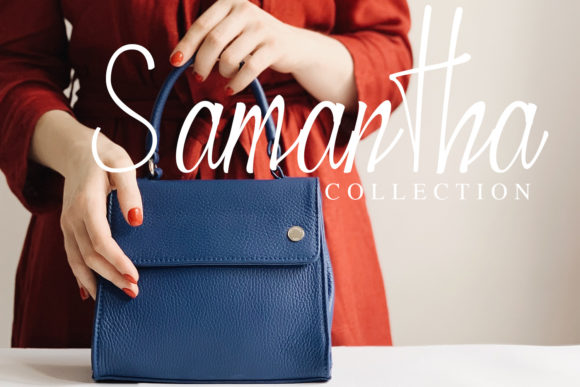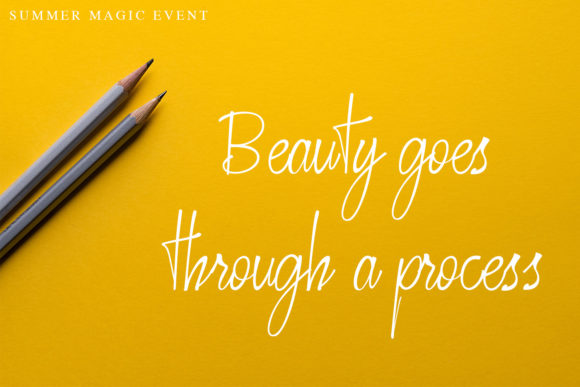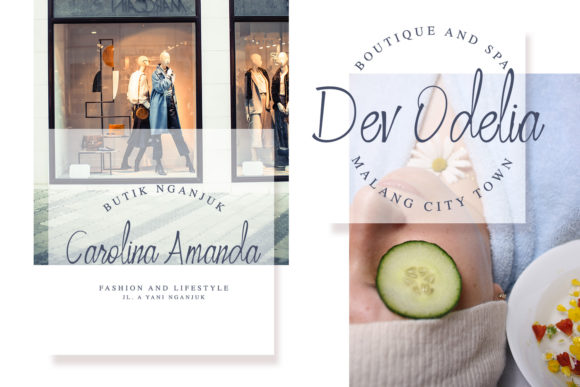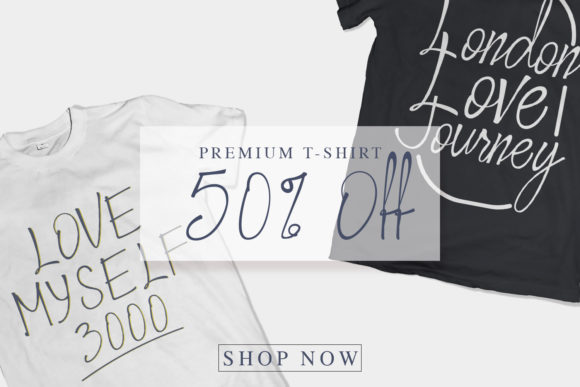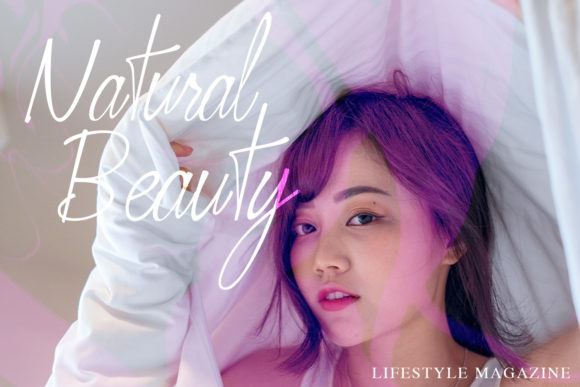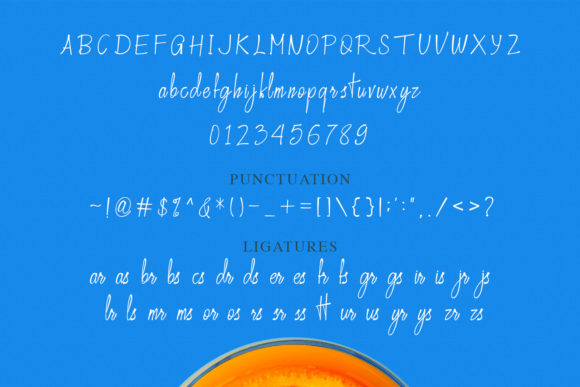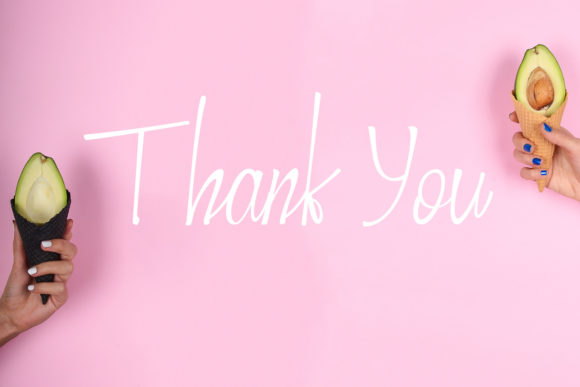
Crusthi Ozaliea Font
About Crusthi Ozaliea Font
Crusthi Ozaliea is a stunning handwritten font with a bold twist. It will add a unique charm to any design project.